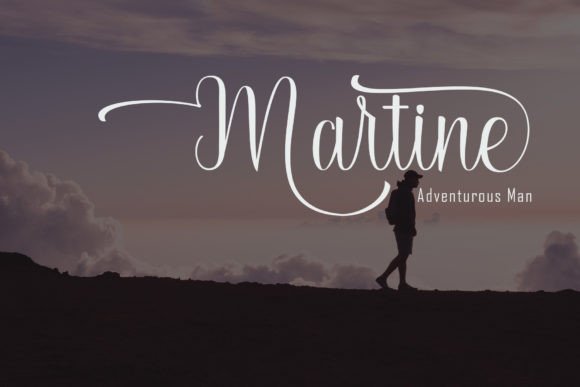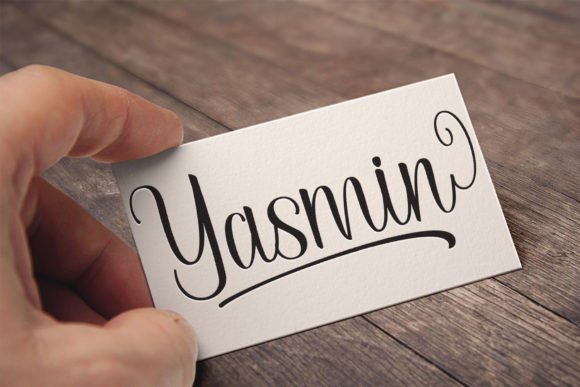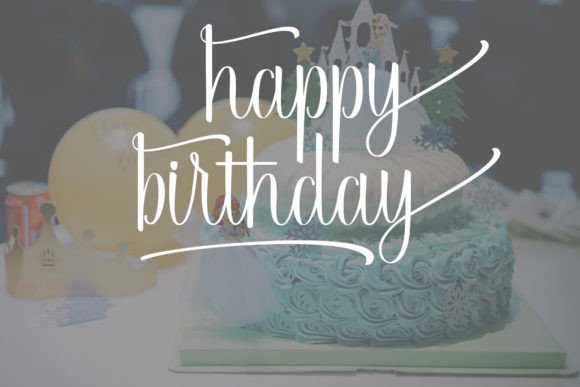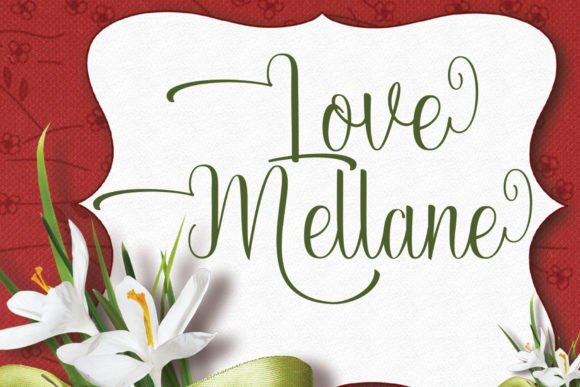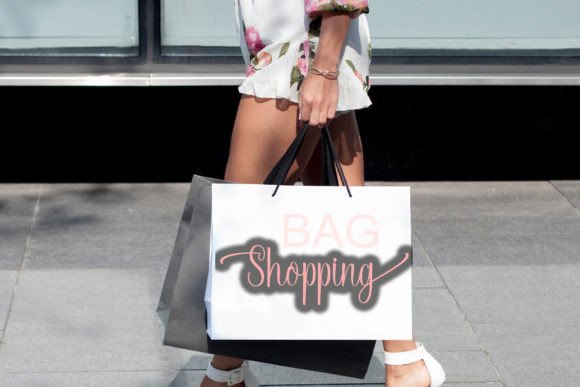
Habbiet Font: The Ultimate Guide to a Fresh and Casual Handwritten Script Font
Are you a designer or crafter looking for a unique and versatile font to elevate your creative projects? Look no further than Habbiet Font! This fresh and casual handwritten script font is perfect for adding a personal touch to a wide range of designs, from branding and advertising to crafting and DIY projects. In this article, we’ll dive into the world of Habbiet Font and explore its features, benefits, and uses.
What is Habbiet Font?
Habbiet Font is a modern and stylish handwritten script font that exudes a natural and effortless charm. Its unique style makes it incredibly fitting for a large pool of designs, from playful and whimsical to elegant and sophisticated. The font’s casual and relaxed vibe makes it perfect for designs that require a friendly and approachable tone.
Key Features of Habbiet Font
- Fresh and Casual Style: Habbiet Font boasts a fresh and casual style that is perfect for designers and crafters who want to add a personal touch to their projects.
- Handwritten Script: The font’s handwritten script style gives it a unique and authentic feel that is sure to capture the attention of your audience.
- Natural and Unique: Habbiet Font’s natural and unique style makes it incredibly versatile and fitting for a wide range of designs.
- Easy to Read: The font is easy to read and understand, making it perfect for body text, headings, and titles.
Benefits of Using Habbiet Font
So, why should you use Habbiet Font in your designs? Here are just a few benefits of using this amazing font:
- Adds a Personal Touch: Habbiet Font adds a personal touch to your designs, making them stand out from the crowd.
- Increases Versatility: The font’s unique style makes it incredibly versatile, allowing you to use it in a wide range of designs.
- Enhances Creativity: Habbiet Font’s fresh and casual style is sure to inspire your creativity and take your designs to the next level.
- Perfect for Branding: The font is perfect for branding and advertising projects, as it adds a friendly and approachable tone to your message.
Uses of Habbiet Font
So, what can you use Habbiet Font for? The possibilities are endless! Here are just a few ideas to get you started:
- Branding and Advertising: Use Habbiet Font to create eye-catching logos, ads, and marketing materials that stand out from the crowd.
- Crafting and DIY Projects: Add a personal touch to your crafting and DIY projects, such as handmade cards, gift tags, and scrapbooking pages.
- Web Design: Use Habbiet Font to create beautiful and engaging websites that showcase your brand’s personality.
- Social Media Graphics: Create stunning social media graphics, such as Facebook posts, Instagram stories, and Twitter headers, using Habbiet Font.
Tips for Using Habbiet Font
Here are a few tips for using Habbiet Font in your designs:
- Pair it with Other Fonts: Experiment with pairing Habbiet Font with other fonts to create a unique and visually appealing combination.
- Use it for Headings and Titles: Use Habbiet Font for headings and titles to add a touch of personality to your designs.
In conclusion, Habbiet Font is a fresh and casual handwritten script font that is perfect for designers and crafters who want to add a personal touch to their creative projects. Its natural and unique style makes it incredibly versatile and fitting for a wide range of designs. With its ease of use, versatility, and creative possibilities, Habbiet Font is sure to become a favorite in your design toolkit.